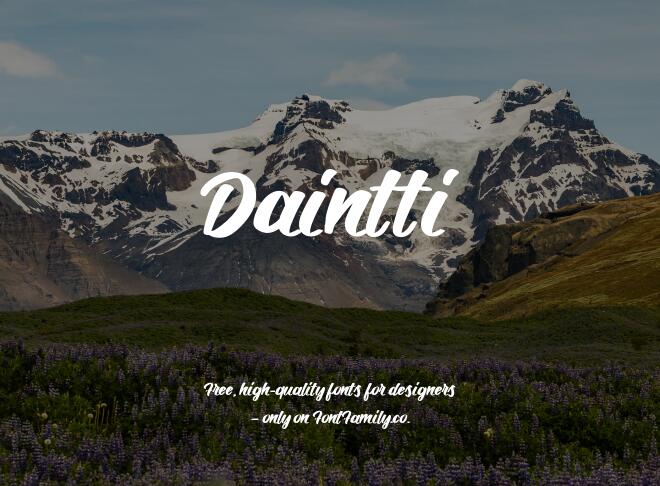
Daintti Font
Daintti Font, designed by Daintti Design Studio, is an elegant and modern handwritten font that boasts a unique charm. With its sleek lines and soft curves, this font is perfect for a wide range of design uses. It is particularly well-suited for branding projects, home-ware designs, product packaging, or simply as a stylish text overlay to any background image. Daintti Font's clean, flowing style is reminiscent of classic calligraphy, yet its modern twist makes it a standout among other handwritten fonts. Its distinguishing features add a special touch to logos, invitations, and website design, making it a favorite choice among designers. Its free personal use license makes it accessible for a variety of projects, enhancing its popularity in the design community.